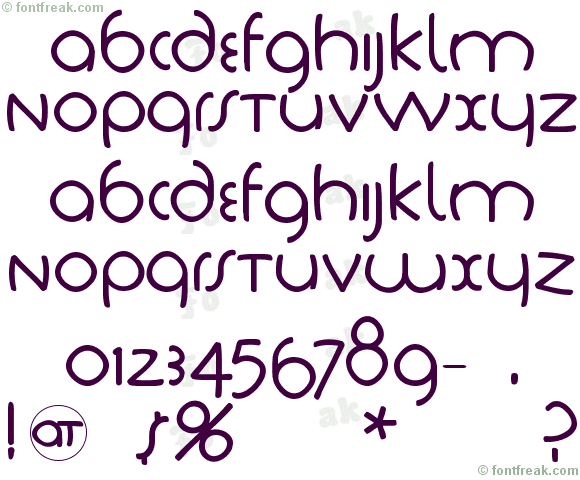
TschichLightFS
About TschichLightFS
TschichLightFS is a sophisticated sans-serif font designed by Manfred Klein, inspired by the timeless aesthetics of modernist typography. This font embodies a clean and elegant style, characterized by its lightweight stroke and minimalistic design. The contrast between thick and thin strokes is subtle yet effective, giving the typeface a refined appearance that maintains readability across various applications. Its well-balanced spacing enhances legibility, making it an excellent choice for both digital and print media.
This font is particularly well-suited for a variety of use cases. It shines in editorial layouts, where its clarity and charm can elevate magazine headlines or article content. Additionally, TschichLightFS is a fantastic choice for minimalist wedding invitations, offering a contemporary flair without overwhelming the design. Its clean lines make it ideal for modern restaurant menus, where it can effectively convey a sense of sophistication and simplicity. Graphic designers may also find it useful for branding projects, especially for businesses aiming for a fresh and dynamic identity.
The target audience for TschichLightFS includes graphic designers, small business owners, and content creators who value high-quality typography in their work. The font's versatility allows it to adapt to various themes and concepts, making it a valuable asset for anyone looking to enhance their visual projects.